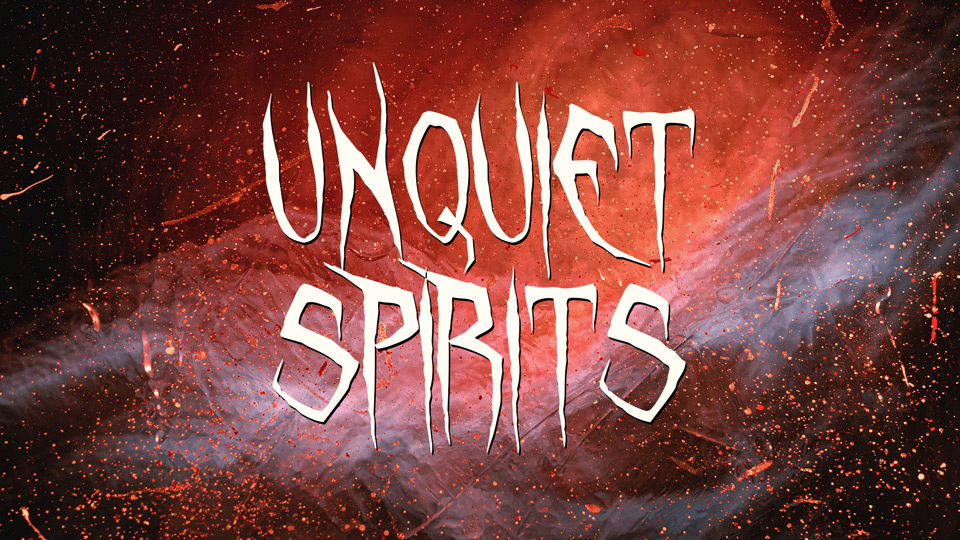
Download Unquiet Spirits is a font that captures the ghostly essence of spectral stories and supernatural encounters. Unquiet Spirits font is perfect for designs that seek to blend the eerie with the mysterious.